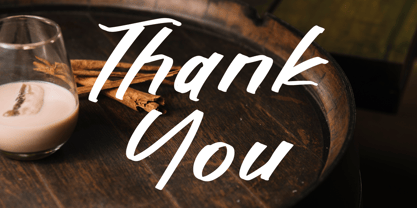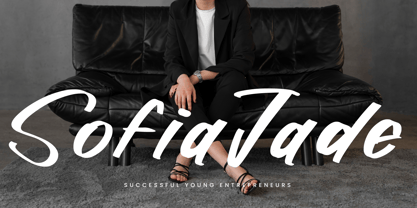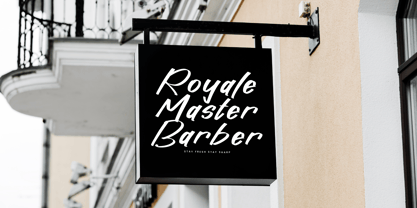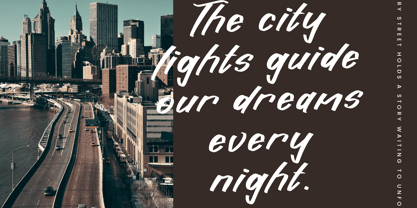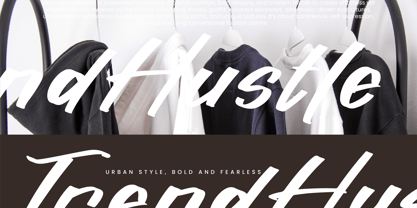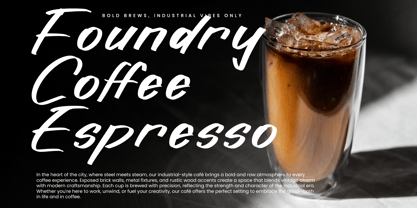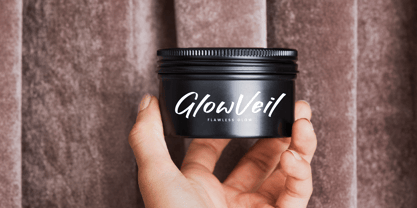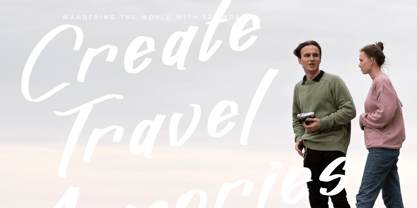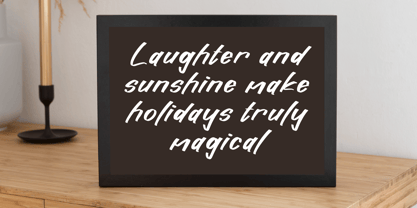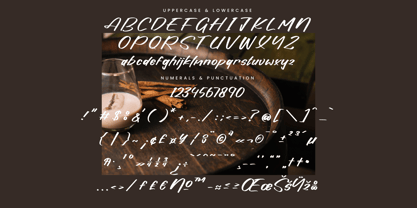
Bravery Horyzon
by Integritype
The Bravery Horyzon Font Family was designed by Dimas Alif Maulana and published by Integritype. Bravery Horyzon contains 2 styles and family package options. More about this family
Bravery Horizon is a contemporary handwritten font crafted by Integritype Studio, ideal for a wide range of creative projects. This versatile typeface shines in applications such as logos, branding, homeware designs, product packaging, and custom mugs. It adds a personal touch to quotes, posters, shopping bags, t-shirts, book covers, business cards, invitation cards, greeting cards, and labels. Perfect for photography watermarks and special events, Bravery Horizon elevates your luxury projects with its premium aesthetic, making it a must-have for designers seeking elegance and style.
Designers: Dimas Alif Maulana
Foundry: Integritype